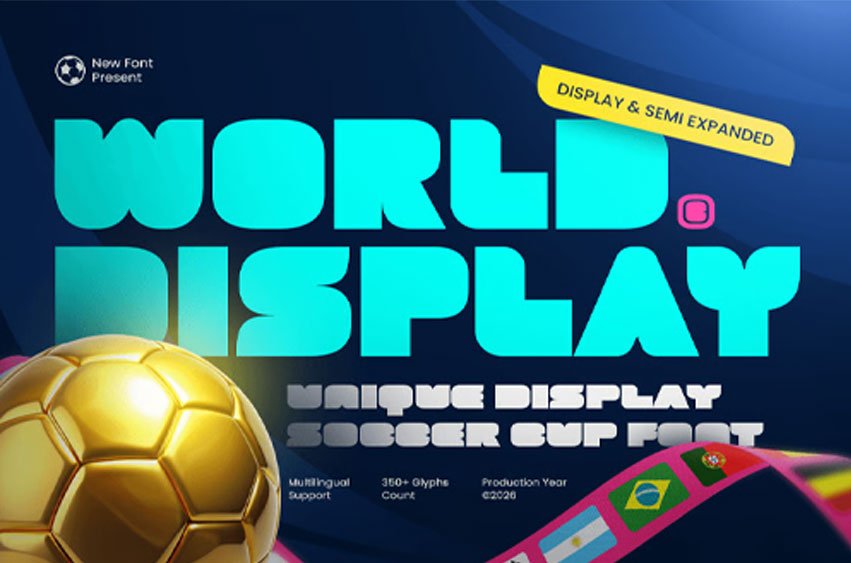
World Display Font is a unique display Football Cup font designed to bring competitive energy, bold impact, and global sports excitement to your typography. With strong letterforms and a dynamic visual rhythm, this typeface creates a spirited tone that feels powerful, celebratory, and instantly attention-grabbing.
Built for sports-focused display design, WORLD DISPLAY works beautifully across tournament posters, championship branding, football campaign visuals, event banners, team graphics, social media promos, website headers, score-themed layouts, and promotional materials. Its bold display structure keeps every headline clear and energetic, making it ideal for high-impact sports communication across both digital and print design.
Whether you’re creating football-themed branding, designing tournament promotions, building fan-focused campaign visuals, or crafting energetic sports headlines, WORLD DISPLAY provides a powerful typographic foundation that makes every composition feel exciting, competitive, and unforgettable.
Inspiration Behind WORLD DISPLAY
WORLD DISPLAY is inspired by global football tournaments and modern sports headline typography—where bold shapes, competitive rhythm, and celebratory energy define the visual atmosphere. The design focuses on strong presence and sporty momentum to support championship branding and dynamic tournament visuals with a modern, high-impact style.
WORLD DISPLAY Font Features:
- Unique display letterforms with bold World Cup-inspired character
- Ready with regular and extended font character style
- Perfect for sports branding, tournament posters, and championship headlines
- Strong readability for event banners, promos, and competitive visuals
- Dynamic structure for energetic football and sports-themed design
- Uppercase, lowercase, numerals, and punctuation included
- OpenType features for polished professional typesetting